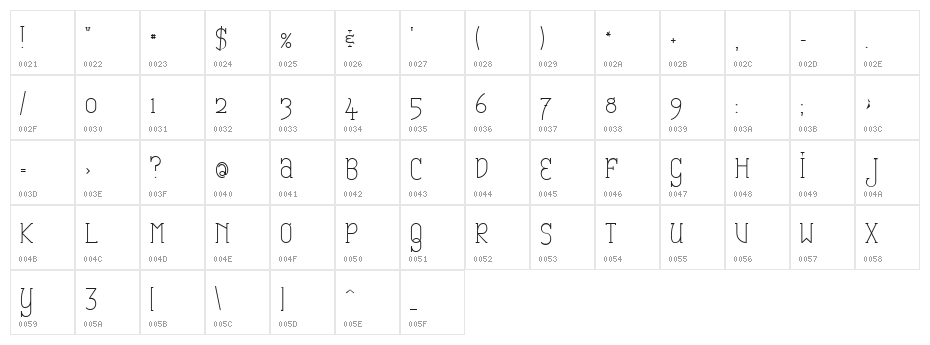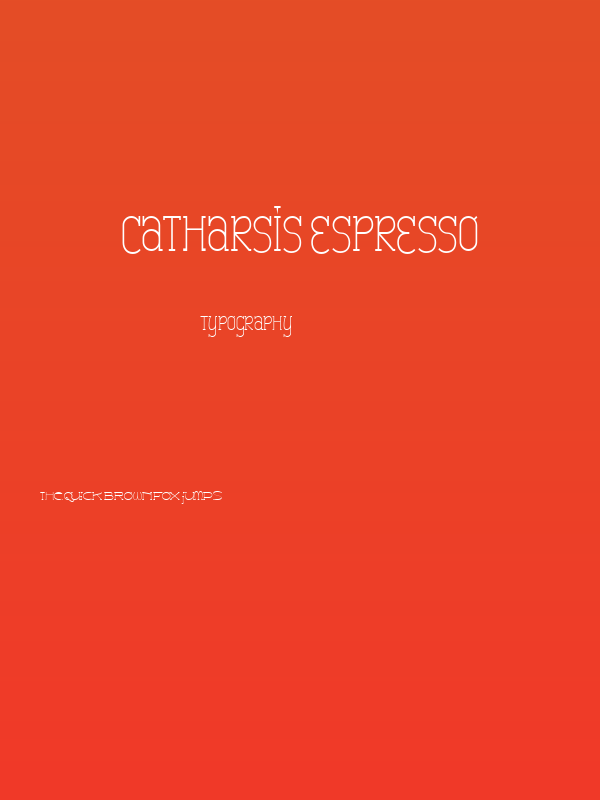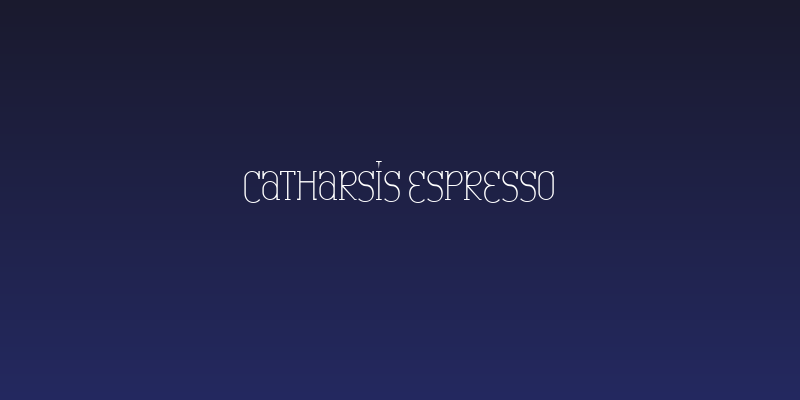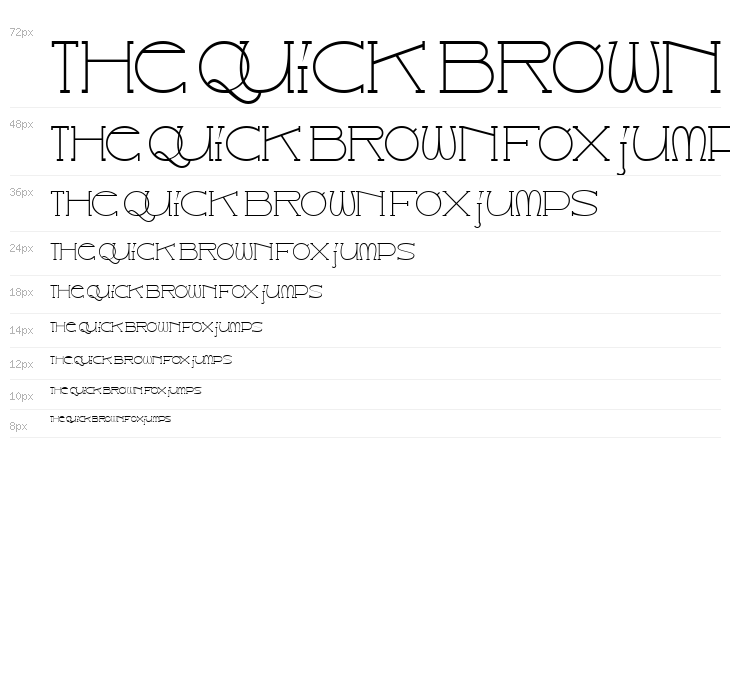
Catharsis Espresso Font
Catharsis Espresso Description
This font features a unique and artistic design with a modern twist. The characters are elongated and have a distinct geometric flair, combining both sharp angles and smooth curves. The uppercase letters are particularly striking, with a tall and narrow appearance, while the lowercase letters maintain a consistent style that complements the uppercase. The numerals are equally stylish, following the same design principles. Special characters are creatively integrated, adding to the font's overall aesthetic appeal. This font is perfect for projects that require a touch of elegance and modernity.
| Proposed Projects | Ideal for branding, logos, posters, and editorial design. |